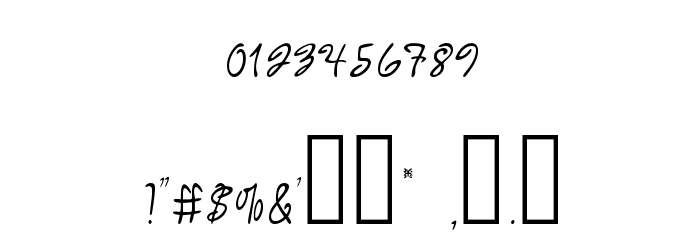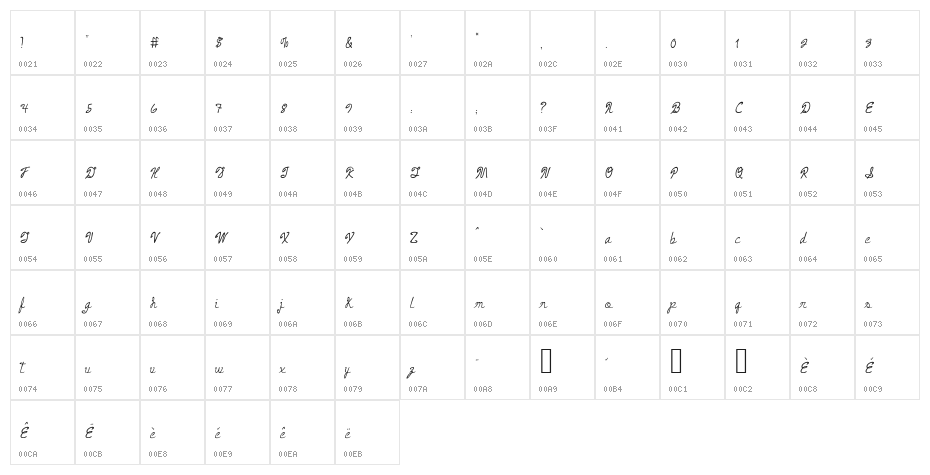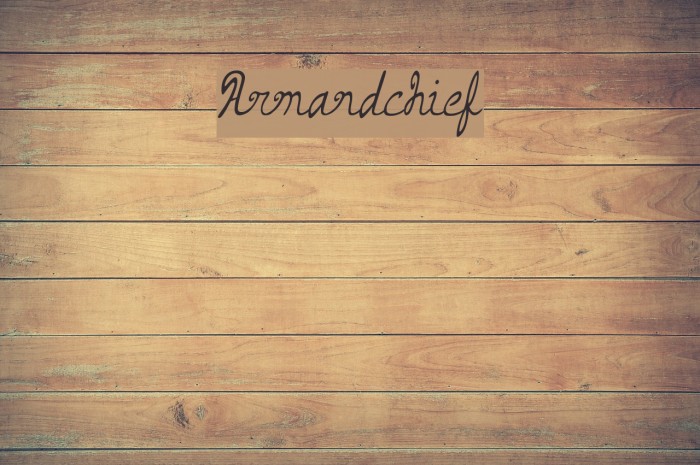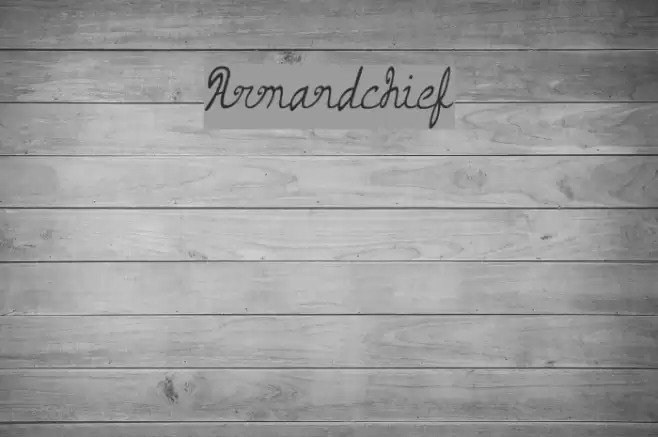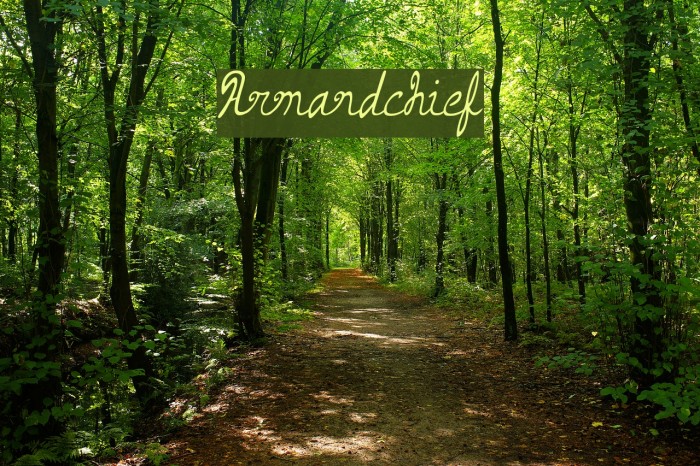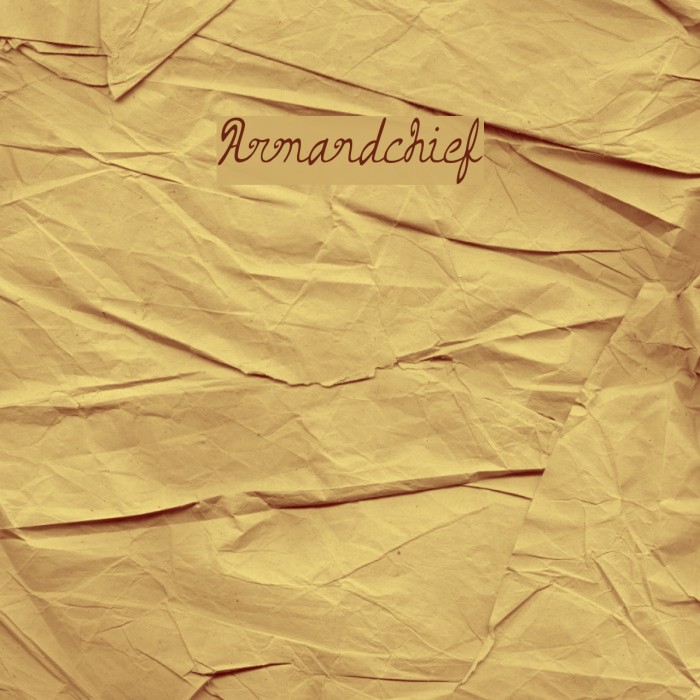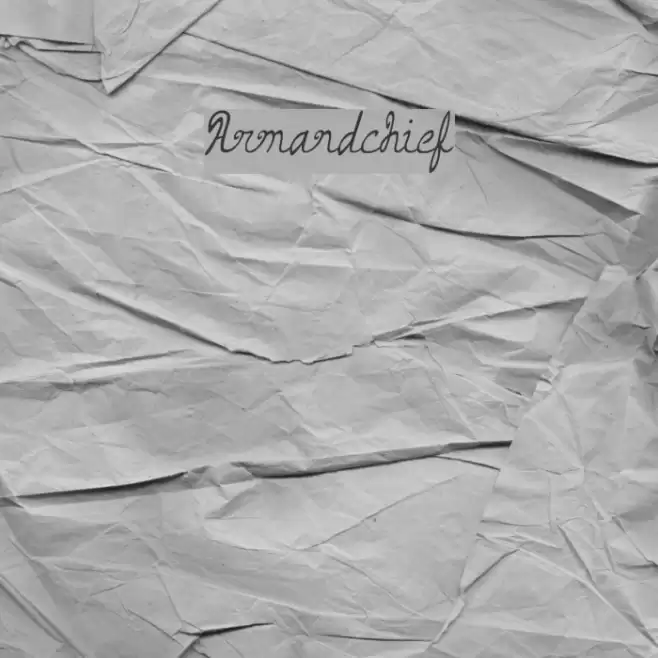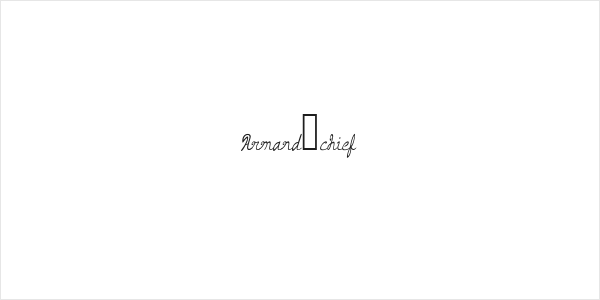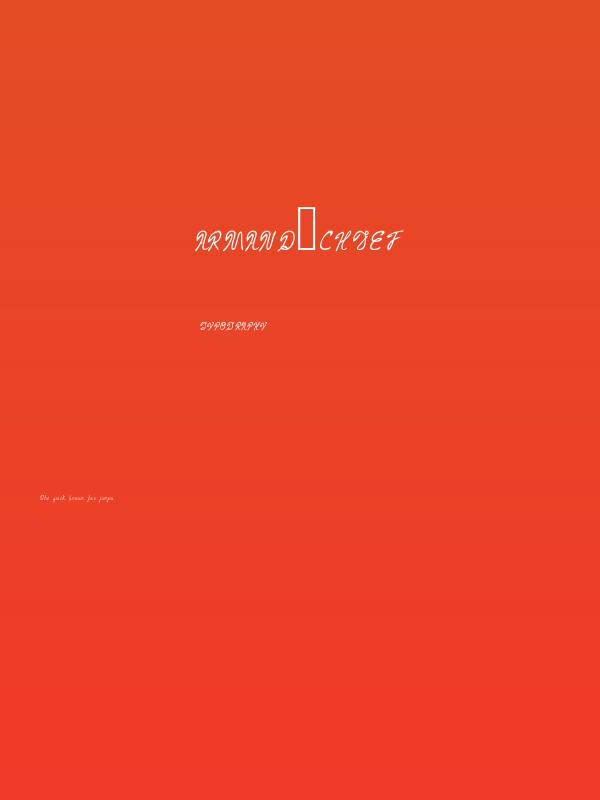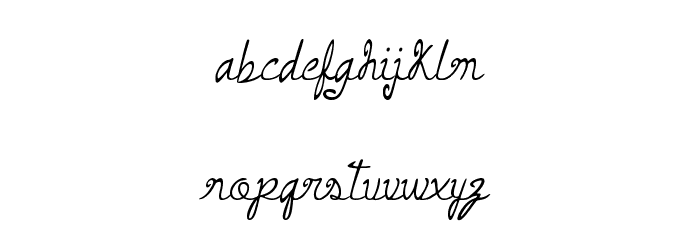
Armand_chief Font
Armand_chief Description
This font features an elegant, flowing script style that mimics the fluidity of handwriting. The uppercase letters are ornate with distinctive flourishes, while the lowercase letters maintain a consistent, cursive form. The numerals are styled to match the overall script aesthetic, providing a cohesive look. Special characters are included, maintaining the same decorative style. The font's design is both sophisticated and artistic, making it suitable for projects that require a touch of elegance and personal flair.